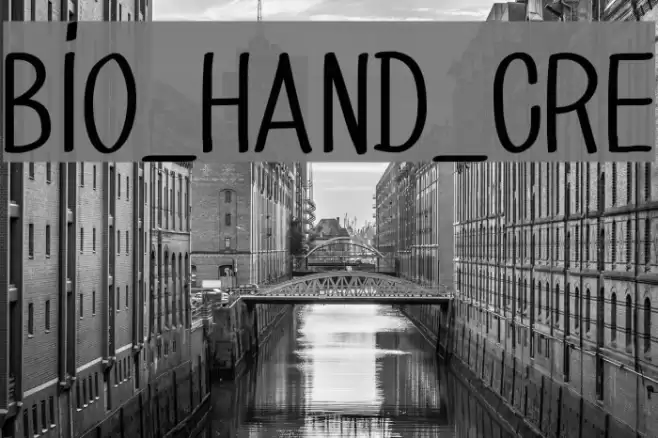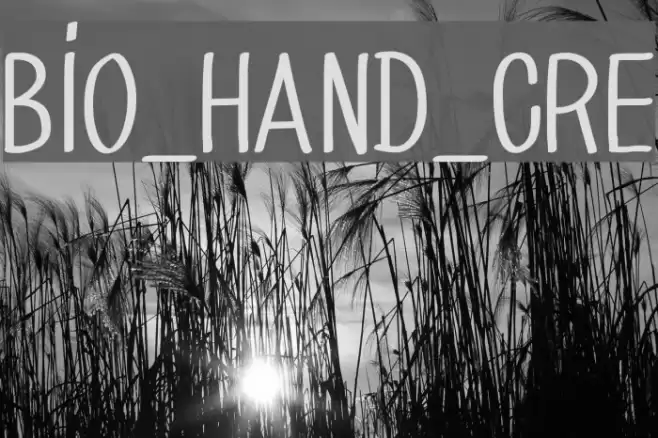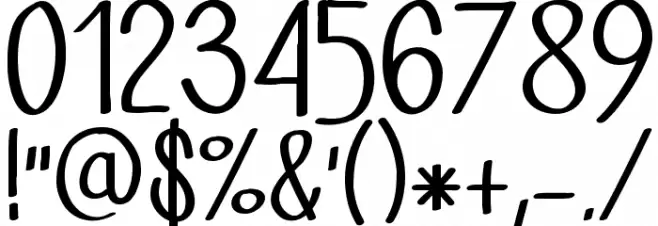
BIO_HAND_CRE Font
BIO_HAND_CRE Description
This font features a playful and casual handwritten style, characterized by its tall, narrow letters with a slight slant. The strokes are consistent in width, giving it a uniform appearance, while the rounded edges add a friendly touch. The uppercase and lowercase letters maintain a cohesive look, with the lowercase letters slightly smaller but still prominent. Numbers and special characters follow the same design principles, ensuring readability and a cohesive aesthetic. This font is ideal for projects that require a personal, approachable feel.
A playful, handwritten font with tall, narrow letters and rounded edges from Uncategorized fonts.
- Proposed Projects: Ideal for greeting cards, invitations, posters, and social media graphics.
- Overall Style: Casual
- Use Case: Headlines, Logos, Informal Text